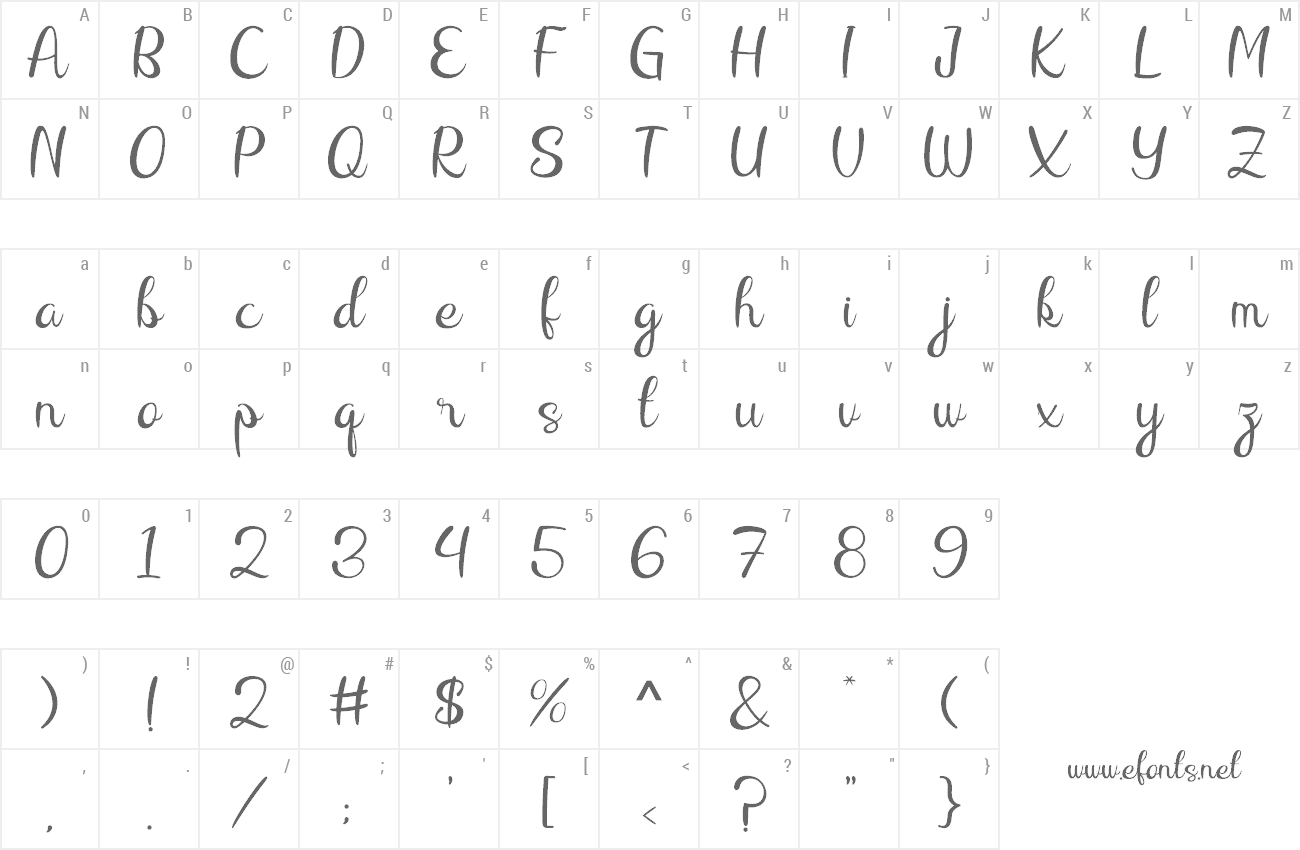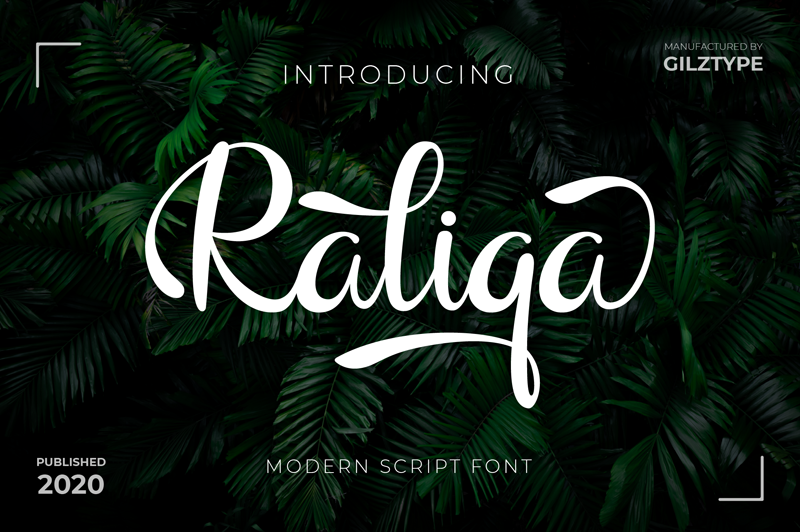
| Font name: | Raliqa |
| Author: | Gilz Creative Studio |
Introducing Raliqa - Modern Script Font Raliqa is a delicate, elegant and flowing handwritten font. It has beautiful and well balanced characters and as a result, it matches a wide pool of designs. Add it to your most creative ideas and notice how it makes them come alive! � This Font Only for PERSONAL USE. NO COMMERCIAL USE ALLOWED! - Here is the link to purchase COMMERCIAL LICENSE: https://www.creativefabrica.com/product/raliqa/ref/394086/ - CUSTOM LICENSE or CORPORATE LICENSE, please contact at : gilztype@gmail.com Thank You |